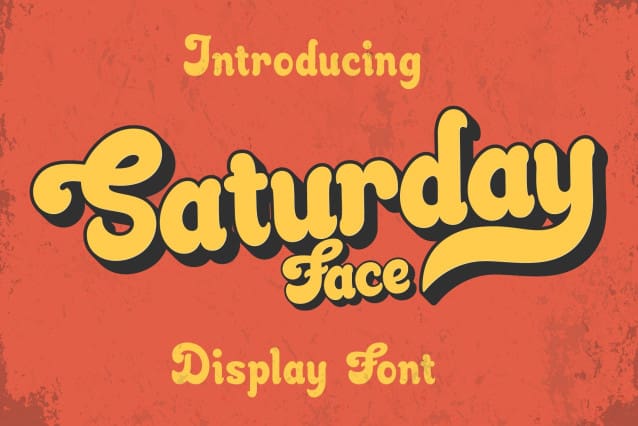
Saturday Face Font
Saturday Face Font is a strong and modern sans-serif font with a bold weight that enhances its presence and readability. Its clean, rounded edges and geometric shapes give it a contemporary, minimalist look while maintaining a professional and approachable feel. The bold style adds emphasis and impact, making it ideal for headlines, logos, and other design elements that require attention. Saturday Face Bold strikes the perfect balance between clarity and personality, making it versatile for both digital and print applications where a bold yet clean aesthetic is needed.